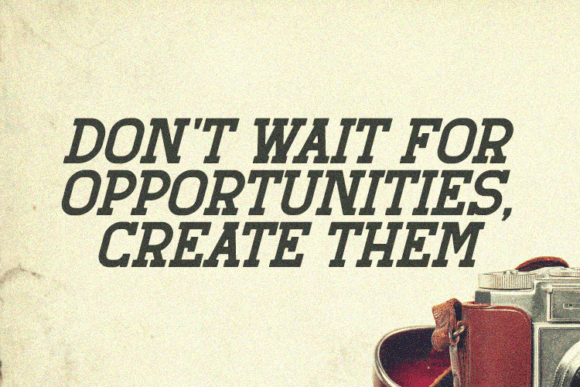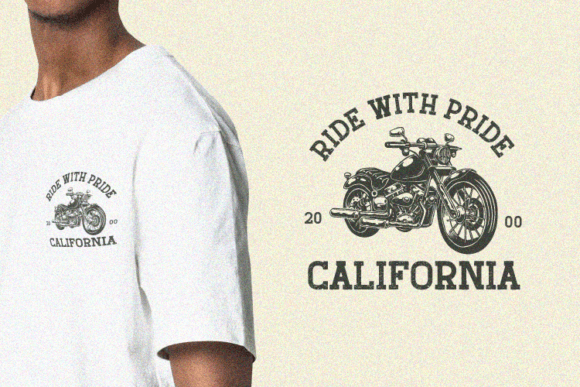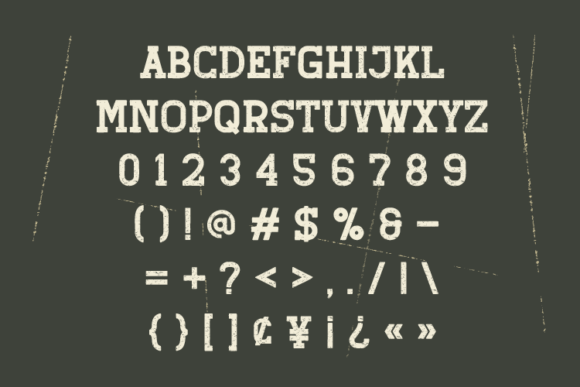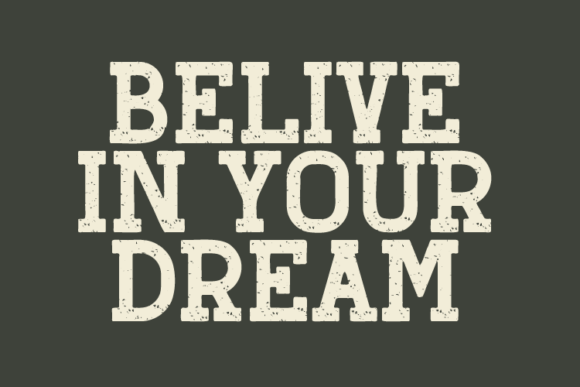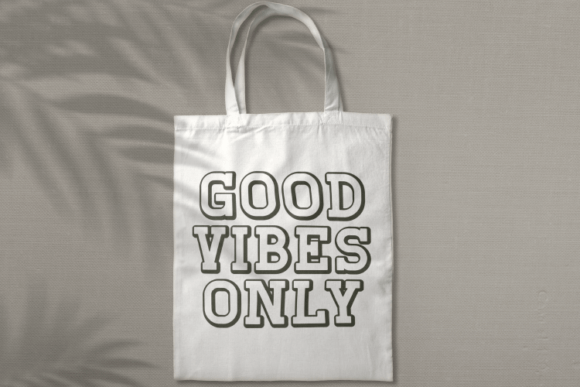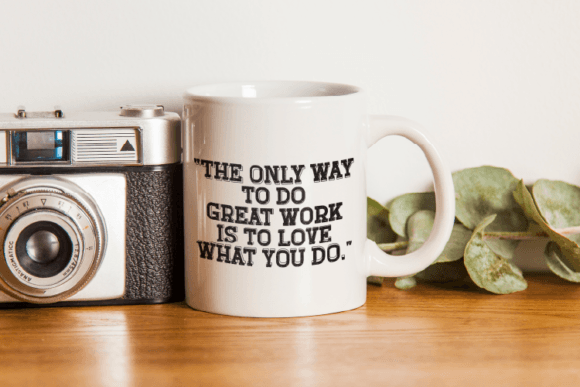
Introduction to Retro Grade Font
Retro Grade is a slab serif font designed to add a touch of nostalgia to any project.
This fontโs sturdy and bold structure is reminiscent of the fonts commonly used in the mid-20th century, making it perfect for designs that seek to capture the retro or vintage vibe Whether youโre looking to create a vintage-inspired logo or a retro-style poster, Retro Grade font will help you achieve the perfect look.
Retro Grade Font offers exceptional quality and versatility, making it a valuable addition to your design toolkit. Whether you’re creating for personal projects or commercial use, Retro Grade Font delivers professional results.